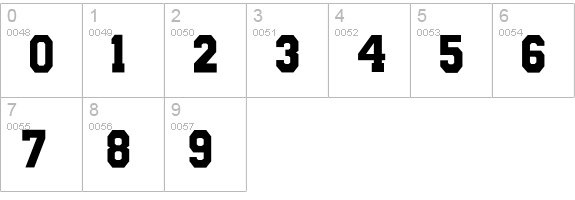
Athletic Font Details
The Athletic font exudes strength, energy, and dynamism with its bold and powerful design. Inspired by the world of sports and athleticism, this font is perfect for creating eye-catching and impactful designs that demand attention. Its sharp edges and sleek lines convey a sense of movement and action, making it ideal for sports-related projects, team logos, and motivational posters. What sets the Athletic font apart is that it is not only visually striking but also completely free to use. That's right, you can download this versatile font for free at FontsMarket.com and start incorporating its energetic and athletic vibe into your designs today. Whether you're working on a sports event flyer, a fitness website, or a gym logo, the Athletic font will help you capture the spirit of athleticism and inspire your audience to push their limits. Don't miss out on this fantastic opportunity to enhance your designs with this powerful and dynamic font – download it now and take your projects to the next level!